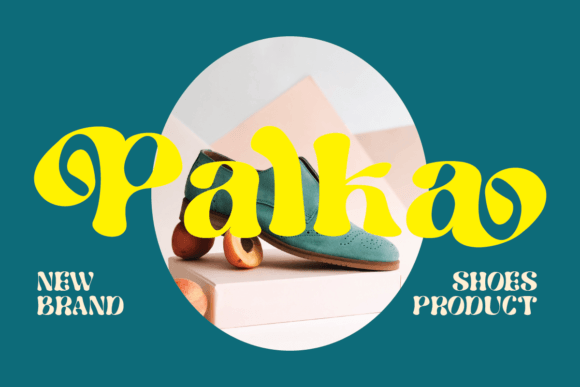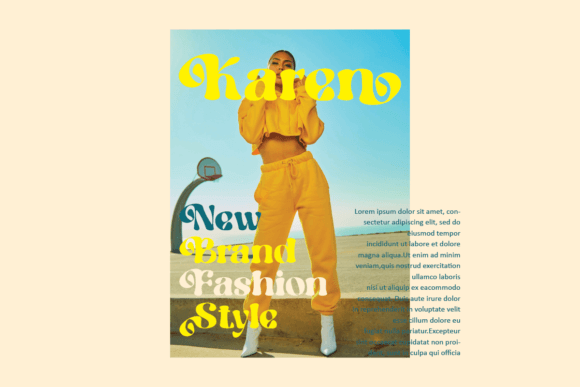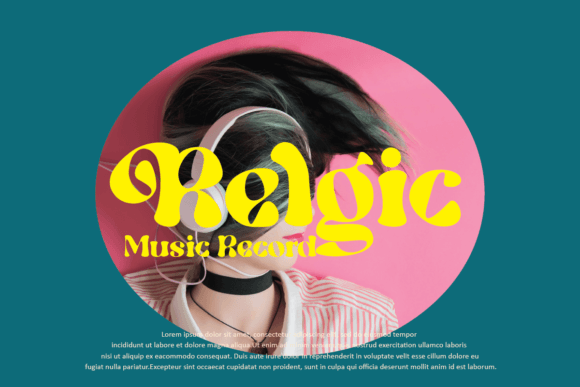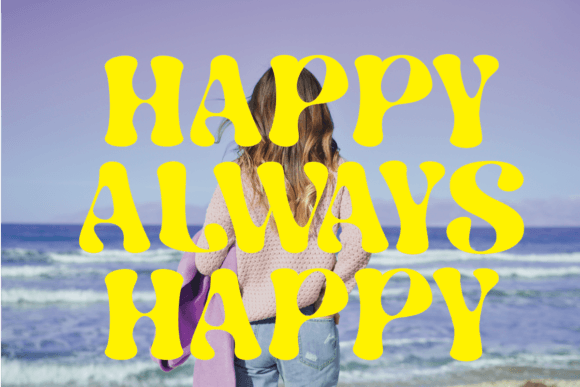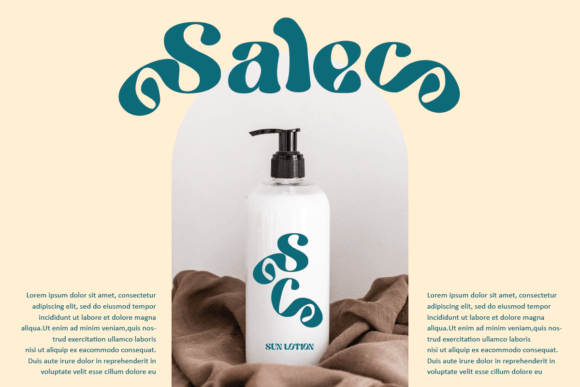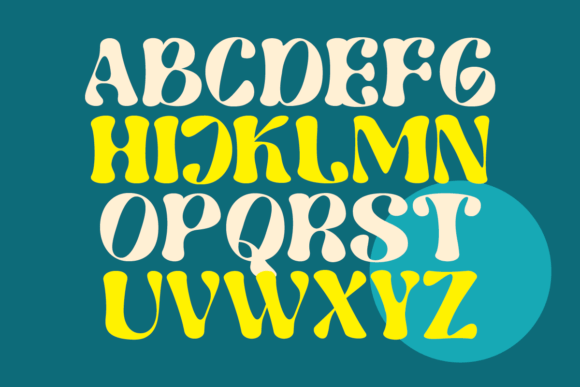
Introducing Disley Font: The Groovy Display Font for Creative Projects
Are you a designer or crafter looking for a versatile font that can elevate your creative projects? Look no further than Disley Font, a groovy display font that’s perfect for a wide range of applications. In this article, we’ll take a closer look at Disley Font, its features, and how it can be used to add a touch of style to your designs.
What is Disley Font?
Disley Font is a modern display font that’s designed to make a statement. Its unique and stylish design makes it perfect for use in large and small sizes, from logo design to magazine headers. This font is incredibly versatile, and its flexibility makes it a must-have for any designer or crafter looking to add some personality to their work.
Key Features of Disley Font
So, what makes Disley Font so special? Here are just a few of its key features:
- PUA Encoding: Disley Font is PUA encoded, which means that you can access all of the glyphs and swashes with ease. This makes it easy to customize your text and add unique touches to your designs.
- Versatility: Disley Font works great in large and small sizes, making it perfect for a wide range of applications.
- Groovy Design: Disley Font has a unique and stylish design that’s sure to turn heads.
Use Cases for Disley Font
So, how can you use Disley Font in your creative projects? Here are just a few ideas to get you started:
- Editorial Projects: Disley Font is perfect for use in editorial projects, such as magazine headers, article titles, and more.
- Logo Design: Disley Font’s unique design makes it perfect for use in logo design. Create a custom logo that’s sure to stand out.
- Clothing Branding: Disley Font is a great choice for clothing branding, from t-shirt designs to labels and packaging.
- Product Packaging: Add a touch of style to your product packaging with Disley Font.
- Magazine Headers: Disley Font is perfect for use in magazine headers, adding a touch of personality to your publication.
- Text Overlays: Use Disley Font as a stylish text overlay to any background image.
Why Choose Disley Font?
So, why should you choose Disley Font for your creative projects? Here are just a few reasons:
- Unique Design: Disley Font has a unique and stylish design that’s sure to turn heads.
- Versatility: Disley Font works great in large and small sizes, making it perfect for a wide range of applications.
- Easy to Use: Disley Font is PUA encoded, making it easy to access all of the glyphs and swashes.
In conclusion, Disley Font is a groovy display font that’s perfect for designers and crafters looking to add a touch of style to their creative projects. Its unique design, versatility, and ease of use make it a must-have for anyone looking to elevate their designs. Whether you’re working on an editorial project, logo design, clothing branding, product packaging, or simply want to add a stylish text overlay to a background image, Disley Font is the perfect choice.